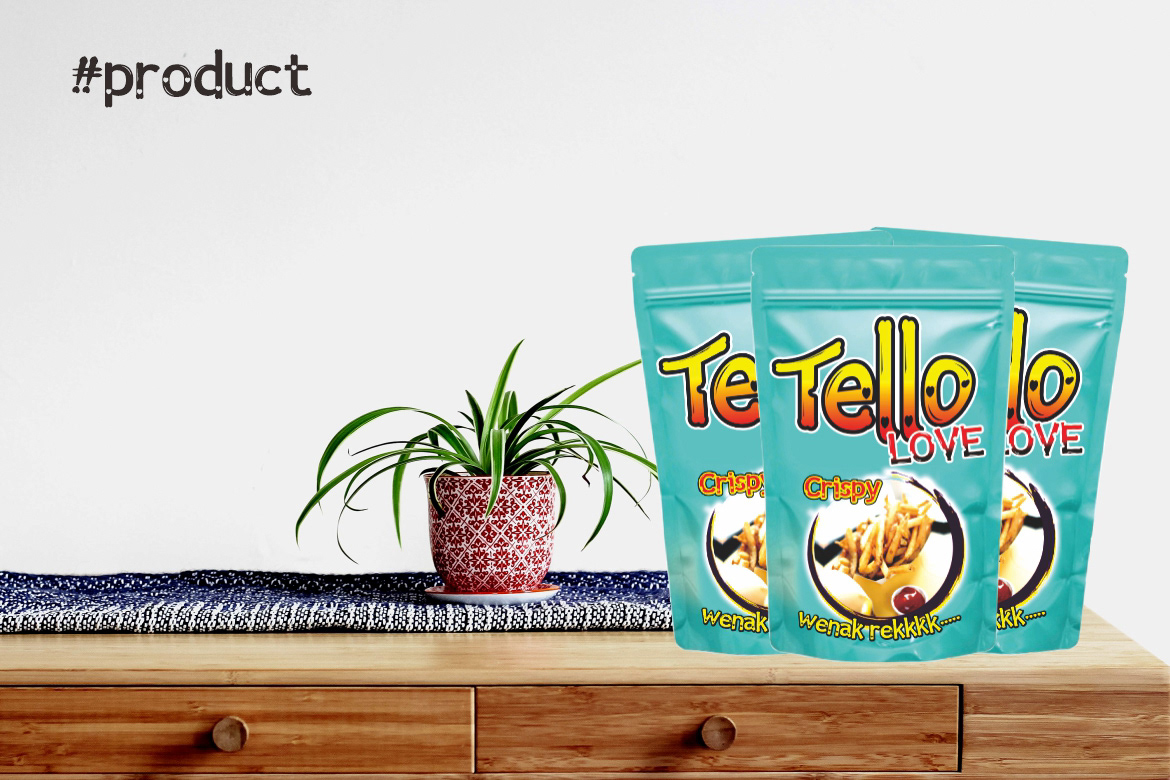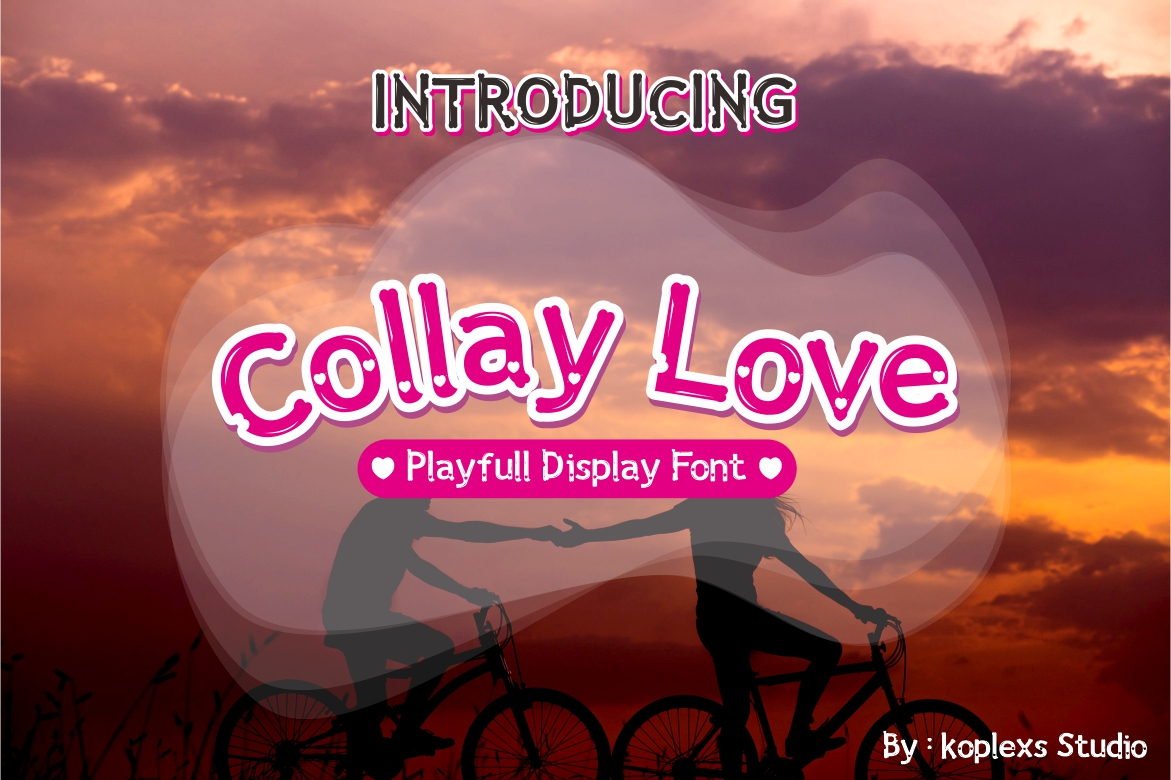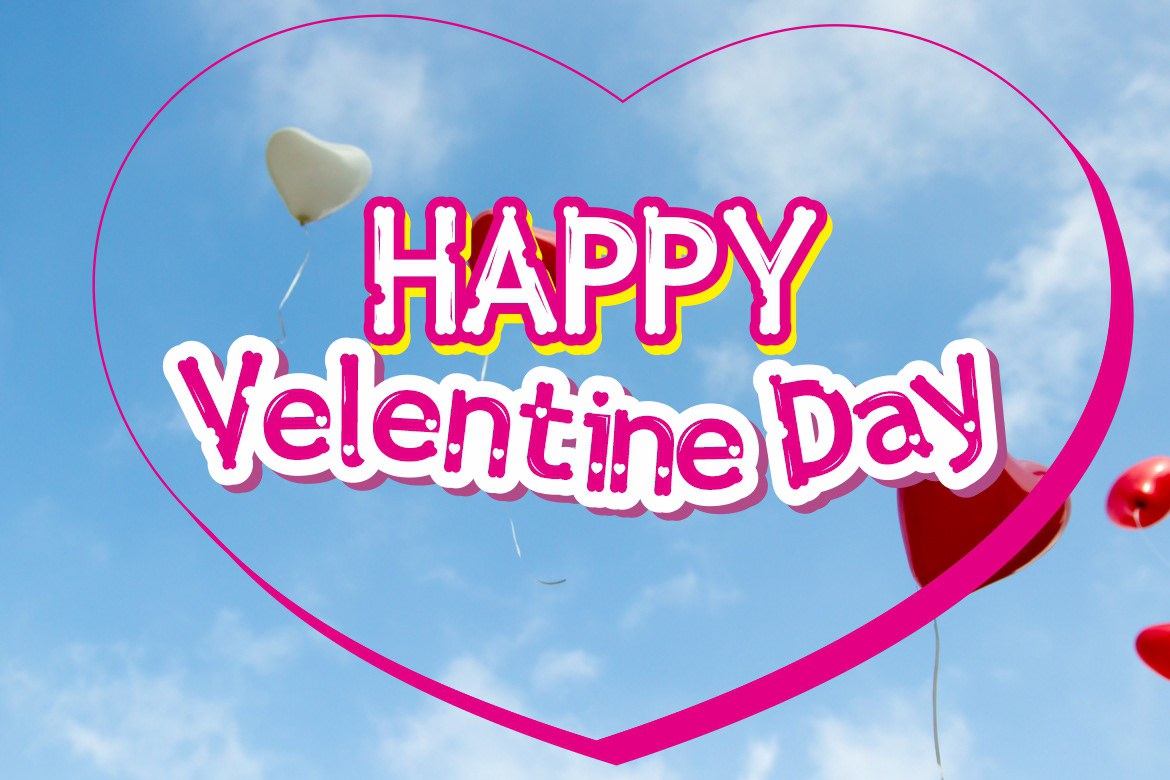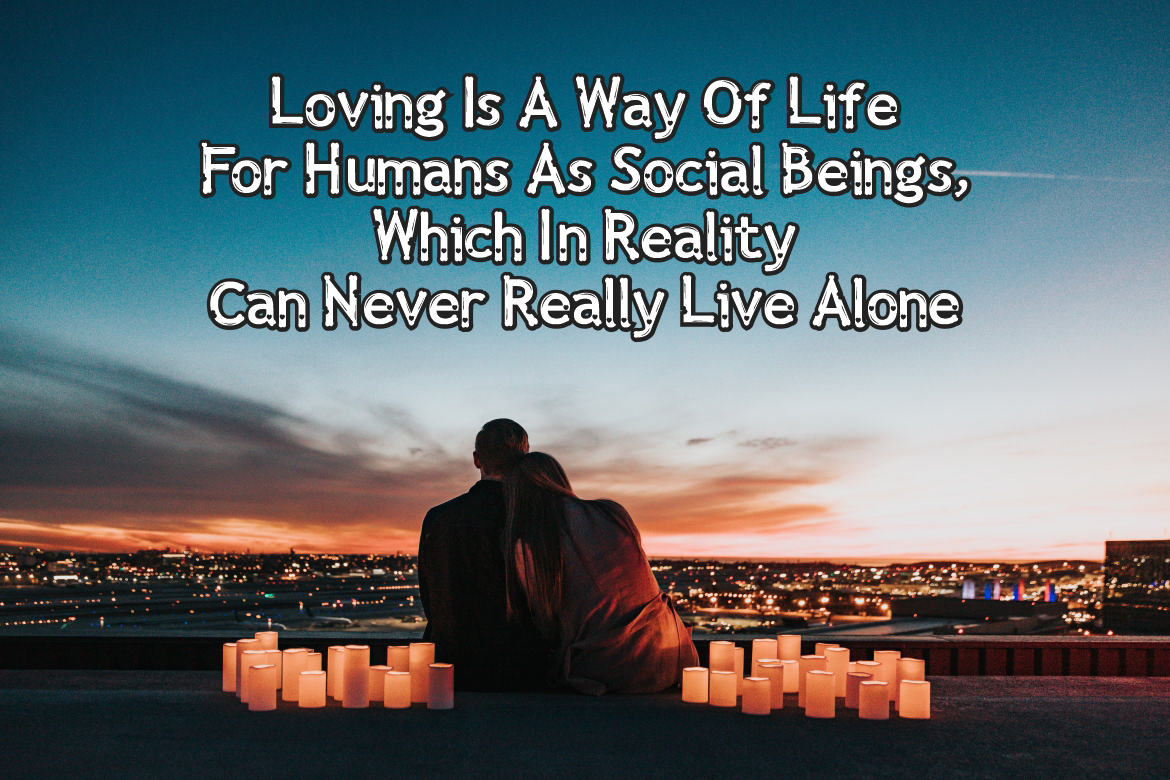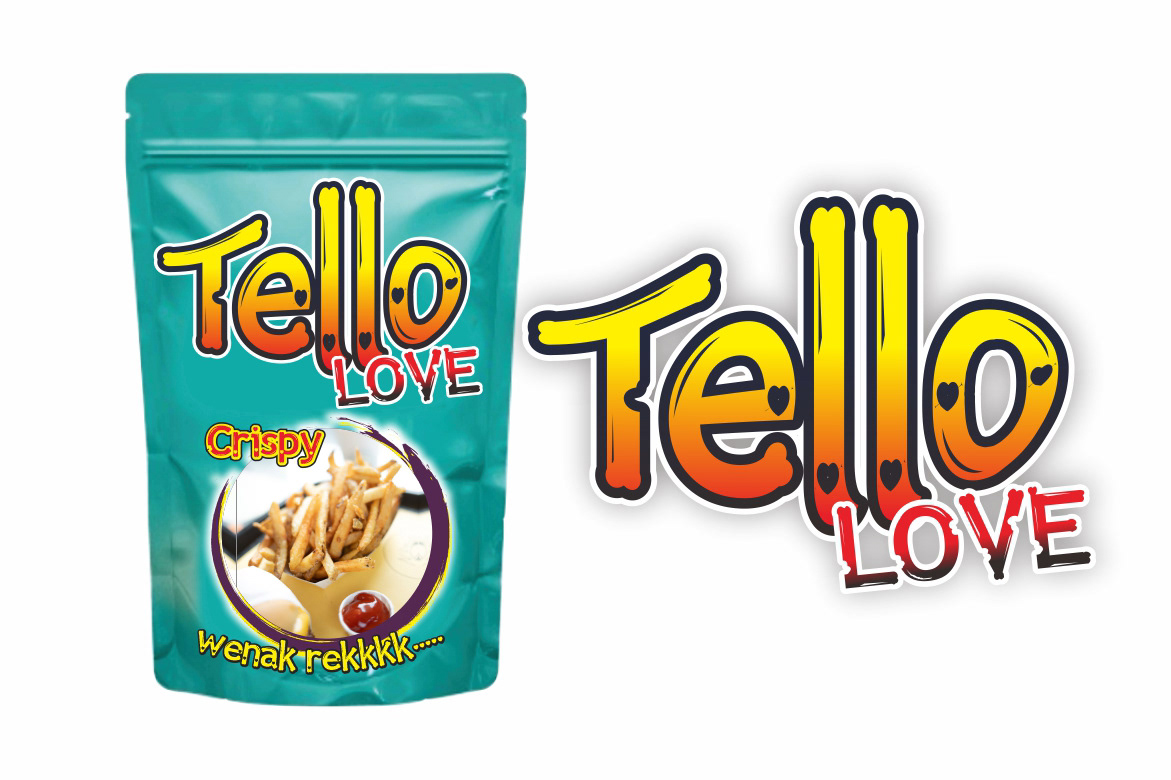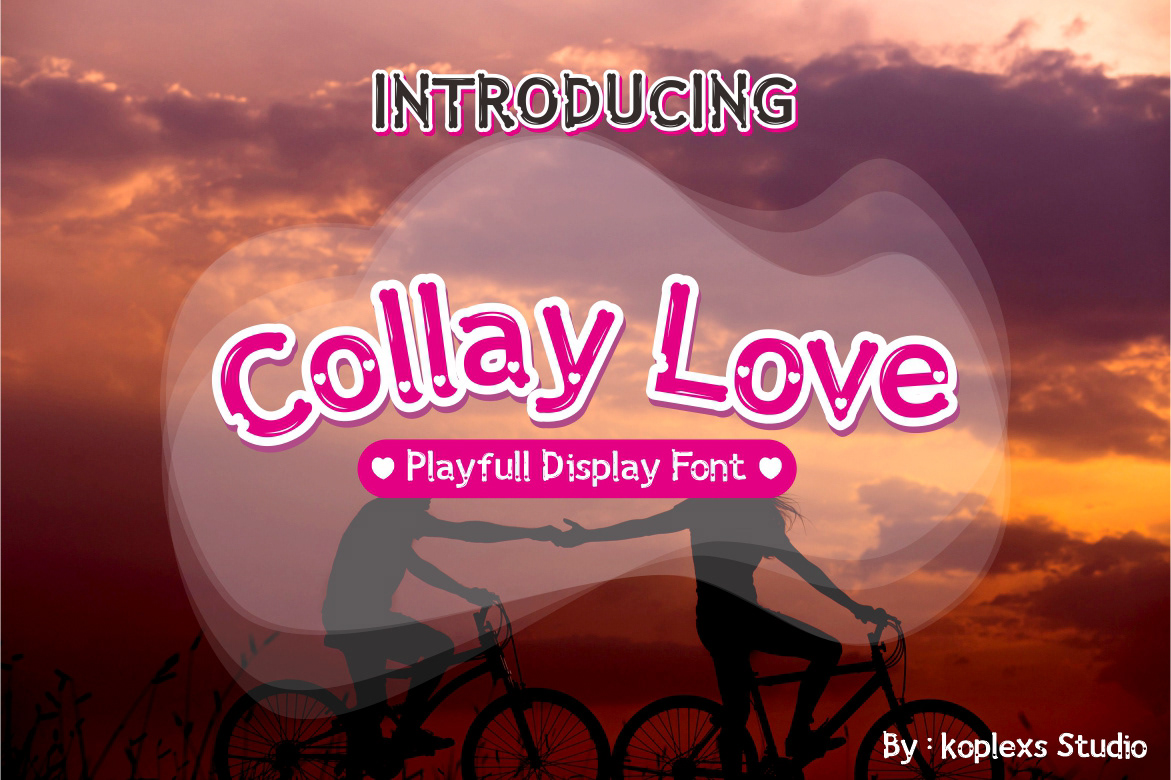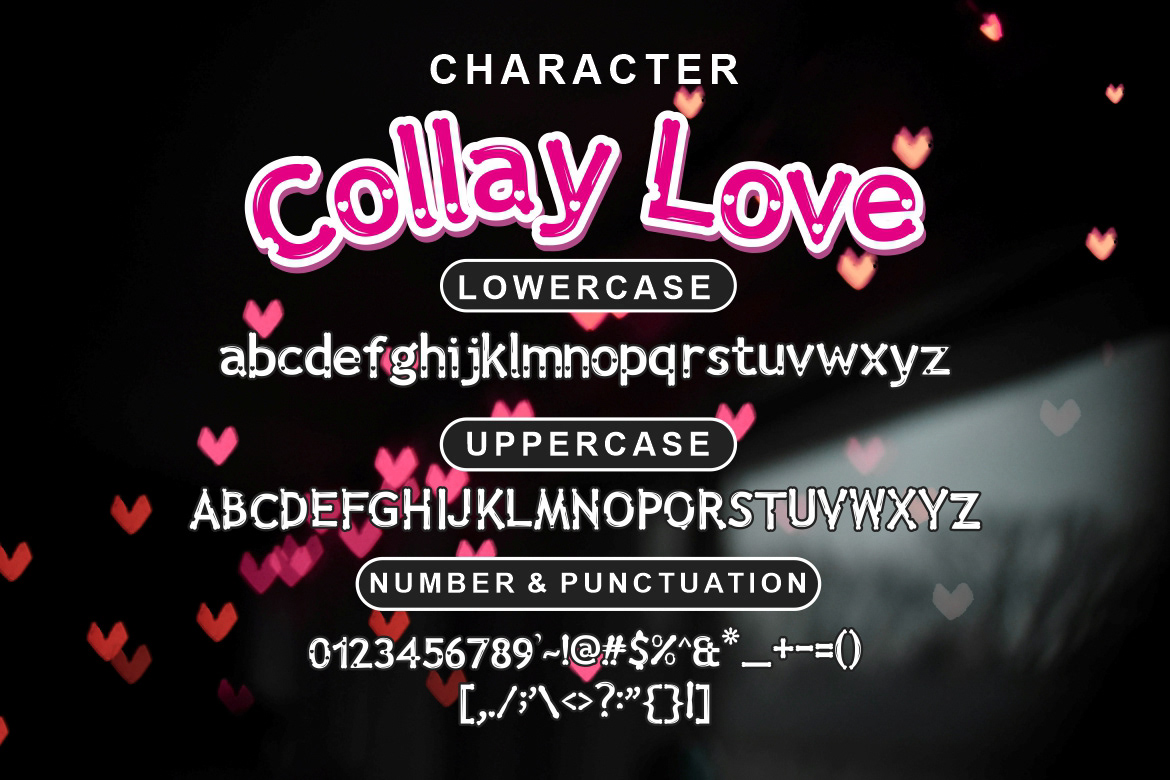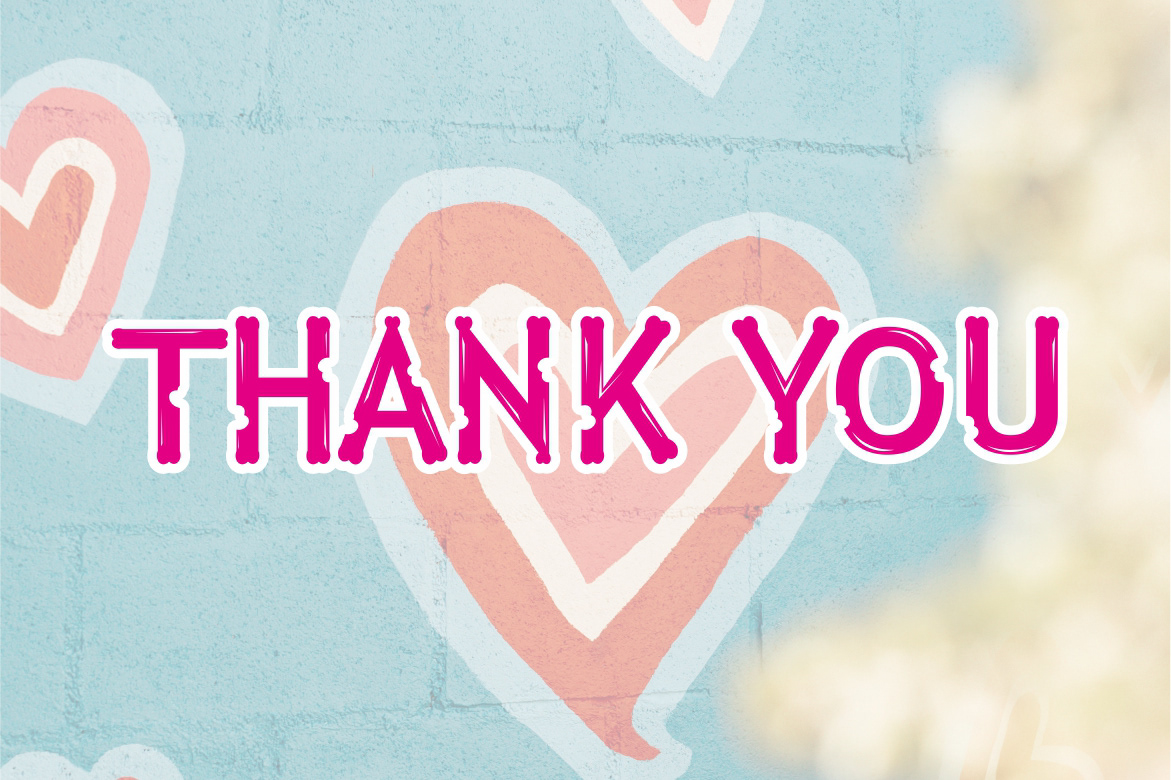
Collay Love - Handwriting Font
Collay Love is a playful and cute display font. Whether you are using it for cartoon-related designs, children’s games, quotes, titles, brand names, book covers, posters, or just any creation that requires a touch of beauty, this font is a great choice.